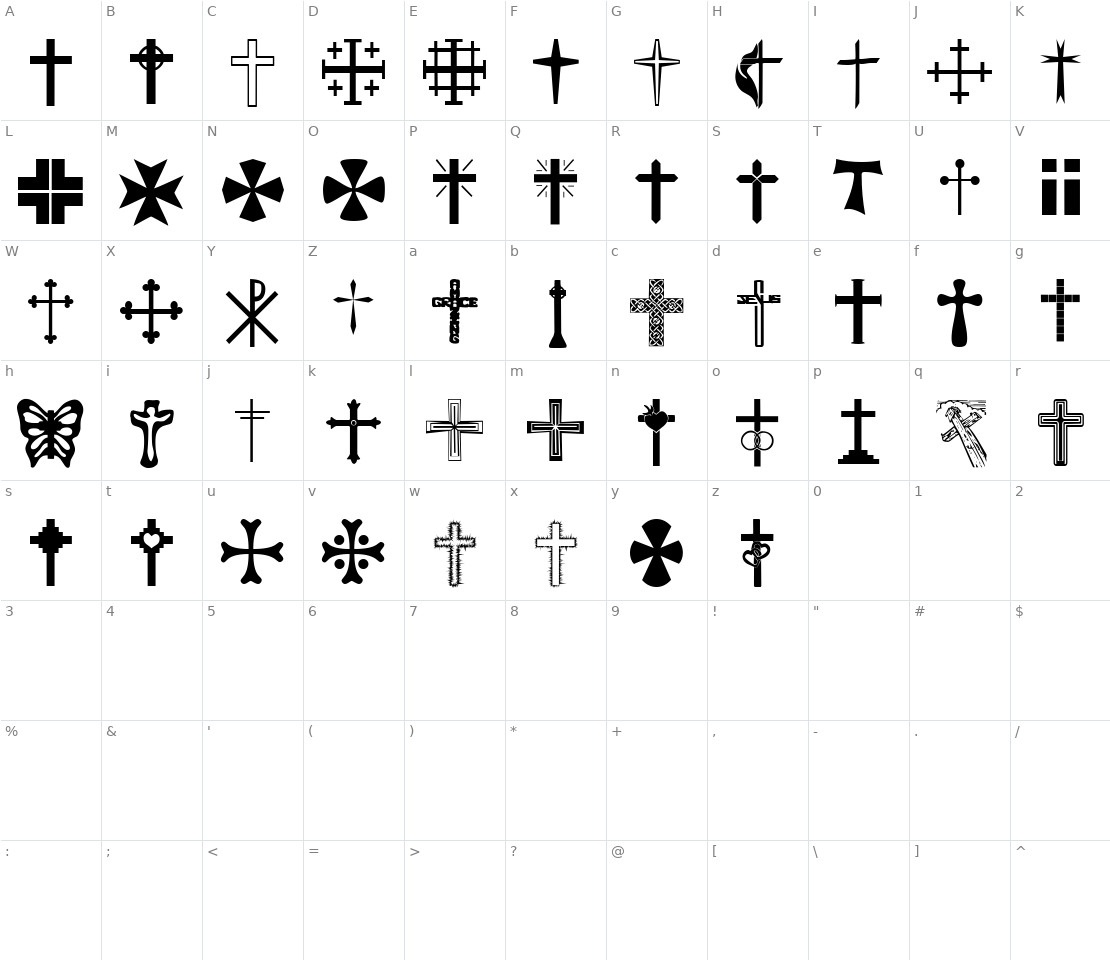
Christian Crosses
Christian Crosses is a dingbat font from Unauthorized Type offering a collection of cross symbols in a variety of styles, from simple and clean to ornate and decorative. Useful for religious publications, church bulletins, invitations, and liturgical design where you need quick, scalable cross icons without hunting for clip art.